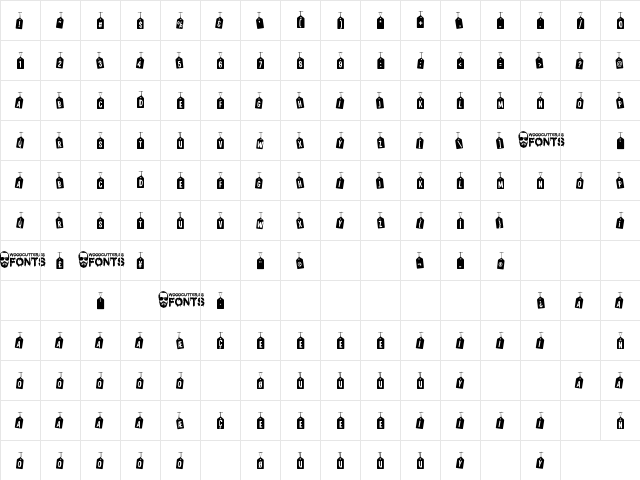
Woodcutter Tags on a Rope Regular
Design Context for Woodcutter Tags on a Rope Typeface
Woodcutter Tags on a Rope echoes the hand-painted signage and woodblock typography of the American frontier, with a warm, rugged personality.
A natural fit for craft spirits, ranch branding, rodeo events, and Americana-inspired design work.
Font Pairing: Combine Woodcutter Tags on a Rope with a simple slab or neutral sans — period-accurate companions reinforce the vintage feel without competing for attention.
Pro Tip: Use Woodcutter Tags on a Rope for short, impactful bursts of text — it shines in poster headlines and product names rather than extended copy.